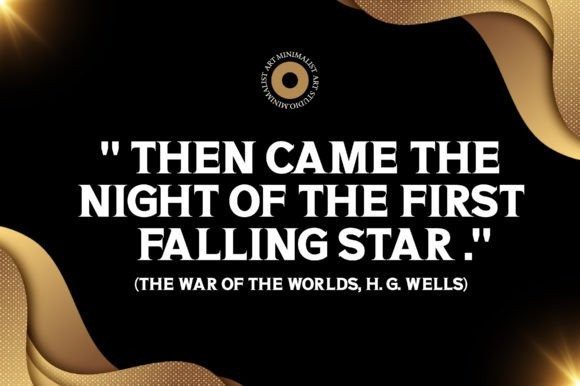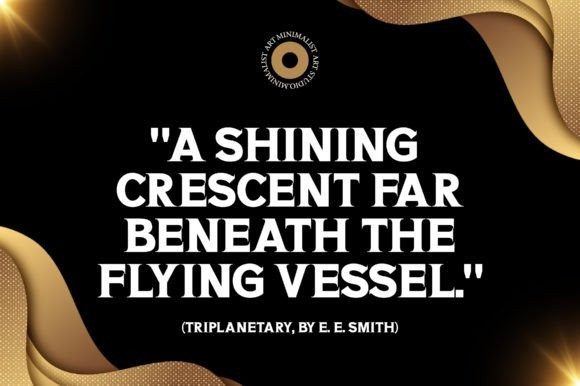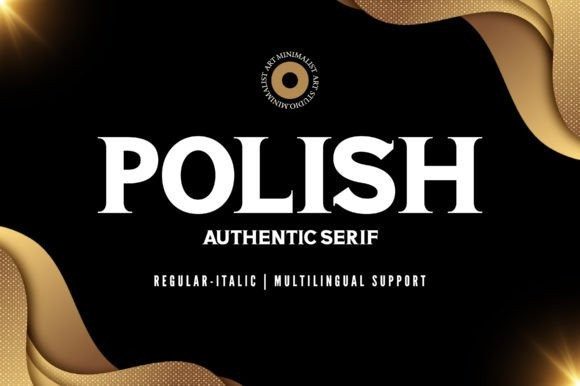
Polish Font
Polish Font an elegant and chic minimalist serif font that exudes sophistication and class. With its clean and refined lines, this font is the perfect choice for any project that requires a touch of elegance and timelessness. From branding and packaging to invitations and posters, “Polish” adds a touch of class and refinement to any design.
One of the most striking features of “Polish” is its simplicity. The font’s minimalistic design makes it easy to read and easy on the eyes, making it perfect for both digital and print projects. Whether you’re working on a website, brochure, or book, “Polish” will make your text look clean, clear, and sophisticated.
In addition to its simplicity, “Polish” also has a unique, modern aesthetic that sets it apart from other serif fonts. The font’s delicate serifs and subtle curves give it a contemporary feel, making it the perfect choice for projects that require a modern, yet timeless look.
Overall, “Polish” is a versatile and sophisticated font that will add a touch of elegance and class to any project. Whether you’re a designer, marketer, or writer, “Polish” is the perfect choice for any project that requires a touch of class and refinement.